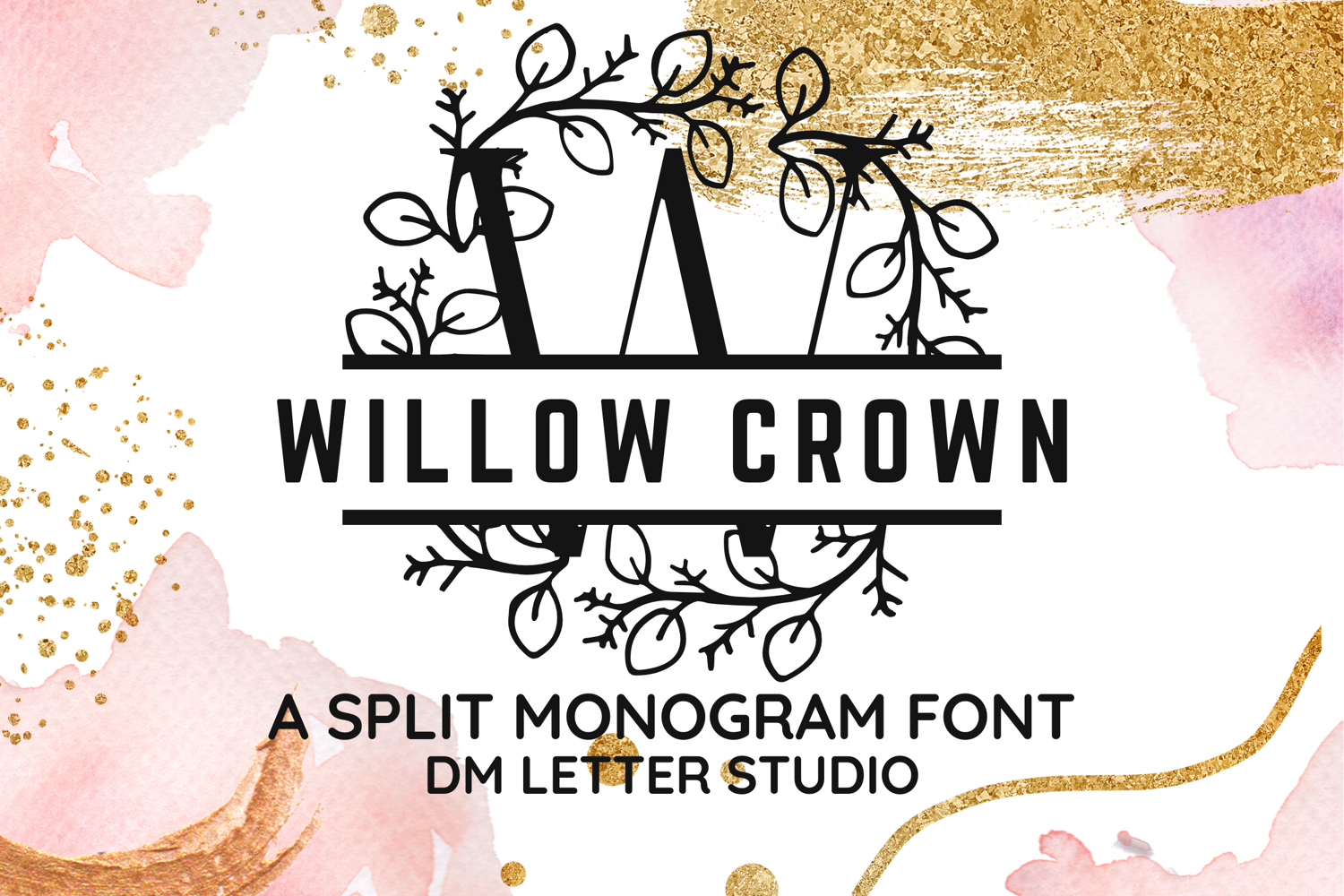
Willow Crown Split Monogram - Elegant Botanical Serif Font
Willow Crown Split Monogram
Willow Crown Split Monogram – Elegant Botanical Serif Font with Split Letters and Willow Branch Accents
Willow Crown Split Monogram is a refined serif font featuring regal split-letter designs crowned with flowing willow branch illustrations. This graceful typeface offers the perfect blend of structure and natural beauty—ideal for customized name signs, wedding materials, and rustic-luxury branding. The horizontal split allows easy customization for initials, names, or titles, all wrapped in botanical elegance.
• Split-Letter Design: Elegant letterforms with a center split for easy customization.
• Willow Foliage Accents: Flowing crown-like willow branches add natural sophistication.
• Classic Serif Style: Strong, balanced serifs bring a timeless and upscale look.
• Ideal For: Wedding signage, name monograms, Cricut crafts, custom gifts, rustic branding, luxury packaging, and home décor.